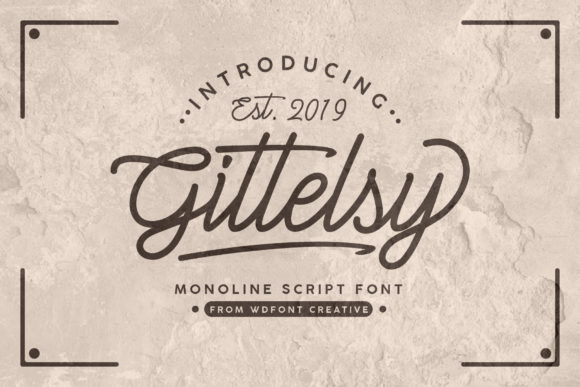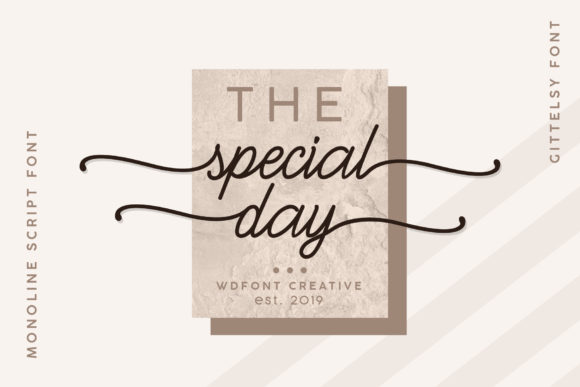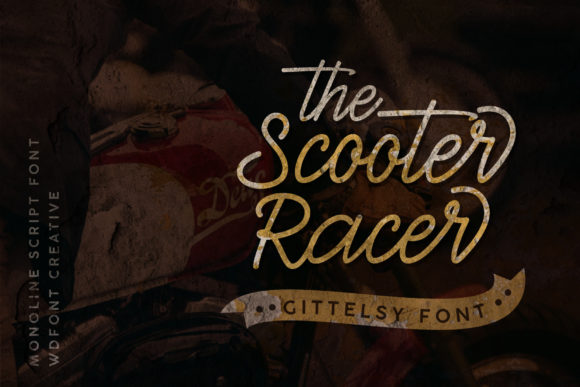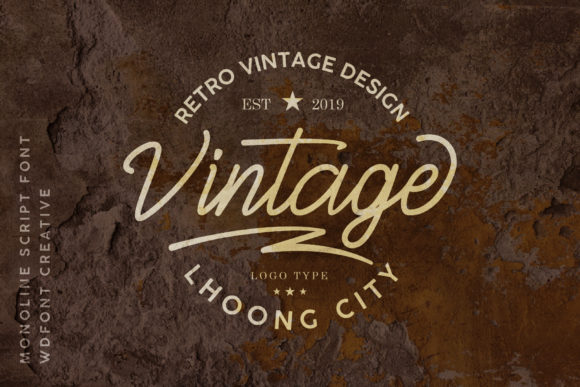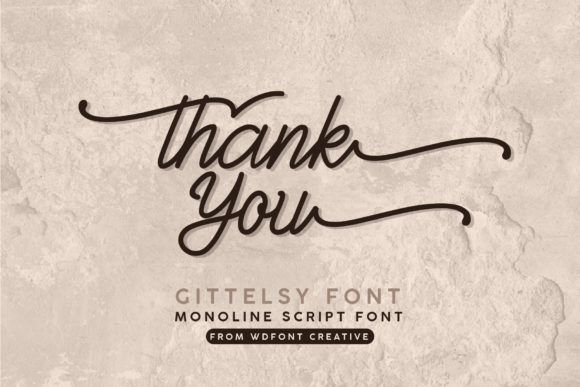
Gittelsy Font
About Gittelsy Font
Gittelsy is a unique and authentic handwritten font with a retro vibe. It will inspire any design project with its bold charm.